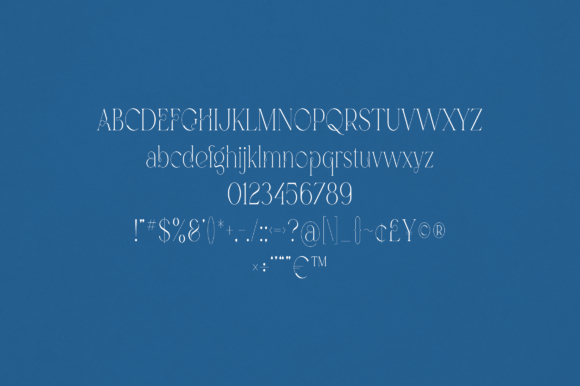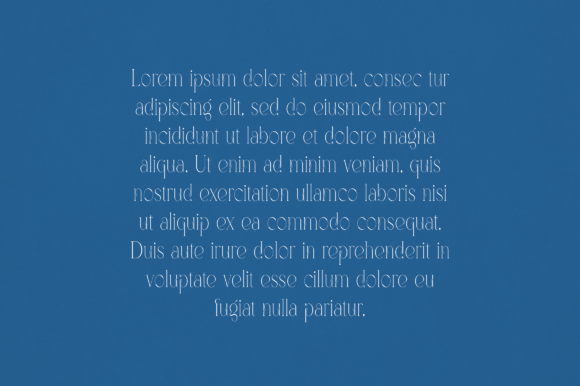
The Quest for Unique Typography
Remember that moment when you stumbled upon a beautiful font that instantly elevated your design? For designers, it’s a thrill that never gets old. It’s the spark that ignites creativity and sets the tone for an entire project. And, for us, that moment led us to discover the enchanting Avalyn Font.
Avalyn Font is a masterfully crafted, elegant, and versatile typeface that adds a touch of sophistication to any design. Whether you’re working on branding projects, home-ware designs, or product packaging, this font is the perfect companion. Its beauty lies in its adaptability, making it a valuable asset for designers who crave uniqueness in their typography.
With Avalyn Font, the possibilities are endless. Use it to create captivating logo designs, stunning magazine headers, or add a stylish touch to your product packaging. The Avalyn Font is sure to make your typography stand out from the crowd.
Avalyn Font Key Features
- Font Family: Avalyn Font is a serif font family with a modern twist, suitable for various design applications.
- Unique Characteristics: Avalyn Font features a unique blend of traditional and modern elements, including subtle flair and elegant lines, making it perfect for creating a sophisticated and professional look.
Avalyn Font Review
As a designer, I’ve had the chance to work with a variety of fonts, but Avalyn Font has left me with mixed feelings. Let’s dive into the good, the bad, and the overall impression.
- Unique and elegant design: Avalyn Font has a distinct, vintage feel that’s perfect for projects that need a touch of sophistication.
- High-quality glyphs: The font includes a wide range of characters, including accented letters and symbols, making it a great choice for international projects.
- Customizable: Avalyn Font offers a range of weights and styles, allowing you to tailor the font to your project’s needs.
- Limited font size flexibility: Avalyn Font can become too ornate when enlarged, making it less suitable for large font sizes.
- Not ideal for body text: While the font is great for headings and titles, it may not be the best choice for body text due to its complexity.
- No italics: Avalyn Font is only available in regular and bold weights, which may be a limitation for projects that require italic text.
Overall, Avalyn Font is a beautiful and unique font that’s perfect for specific projects. While it has its limitations, it’s a great choice for designers who want to add a touch of elegance and sophistication to their work.
Tips for Getting the Most Out of Avalyn Font
Use Avalyn Font for titles, headings, and other attention-grabbing text elements.
Pair Avalyn Font with other fonts for a unique and stylish typography combination.
Experiment with different font sizes and styles to create a visually appealing design.
Avalyn Font is ideal for:
Branding and marketing materials.
Artistic and creative projects.